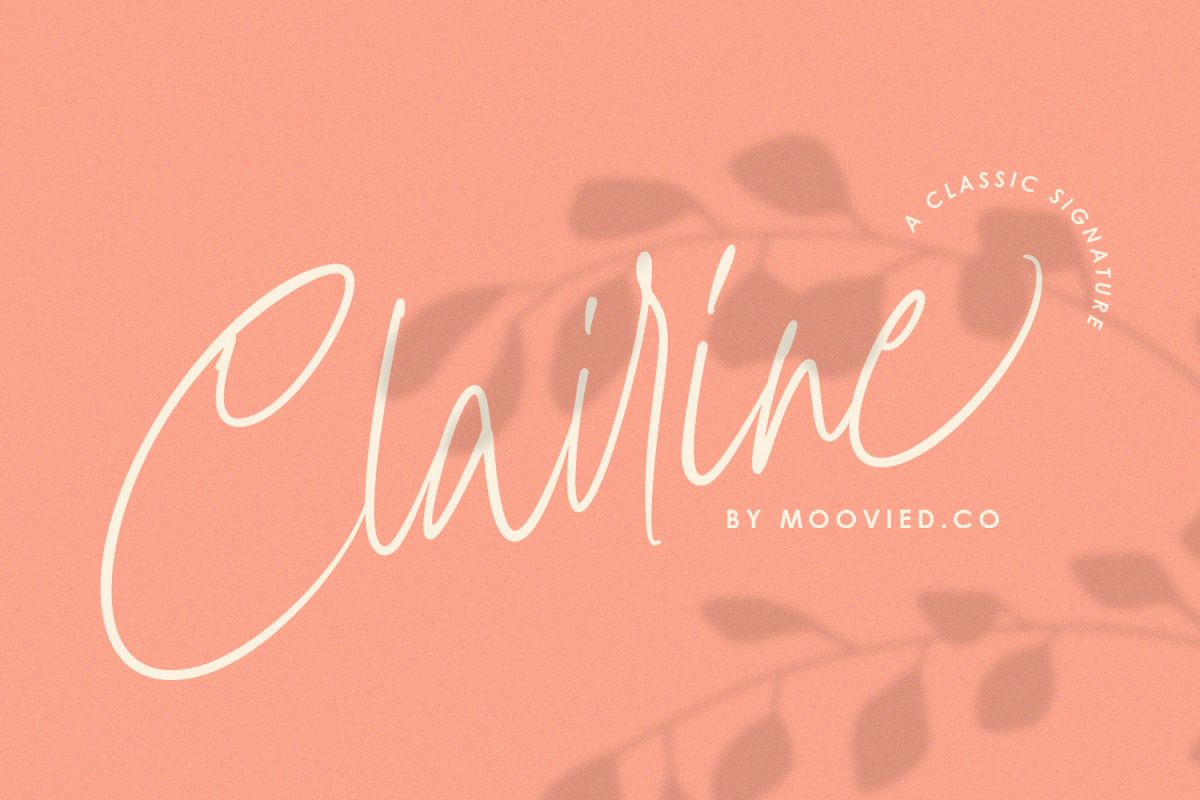
Chairine
ClairineSignature-Regular
Chairine a classic signature is elegant calligraphy signature with contemporary, It is perfect for blogging, social media, branding, product packaging, wedding invitations, branding, headlines, signage, labels, signature, book covers, posters, quotes and more.to use a beautiful alternative, you need a program that supports OpenType features such as Adobe Illustrator CS, Adobe Photoshop CC, Adobe Indesign and Corel Draw.—-—-—-—-—-—-—-—-—-—-—-—-—-—-—-—-—-—-—-—-—--Files Included : Chairine.ttf, Chairine.otf Features : Basic Latin A-Z and a-z, Numbers, Symbols, PUA Encode, & Ligature Multilanguage Support—-—-—-—-—-—-—-—-—-—-—-—-—-—-—-—-—-—-—-—-—--Can be used for both Commercial and Personal projects. Contact me with an inbox message If you have any question. Thank you!Happy Creating.